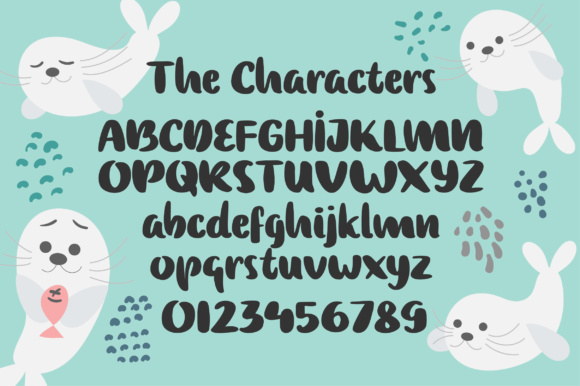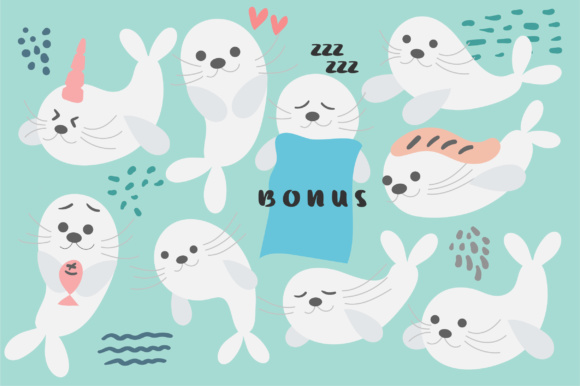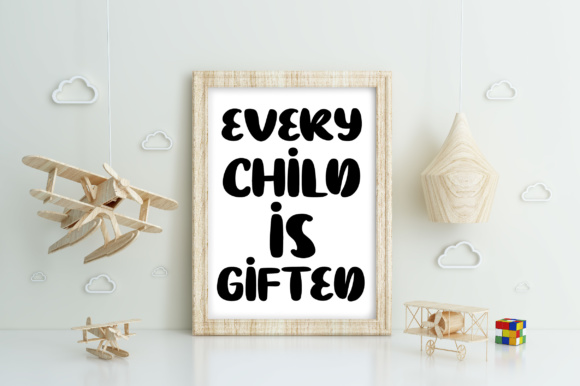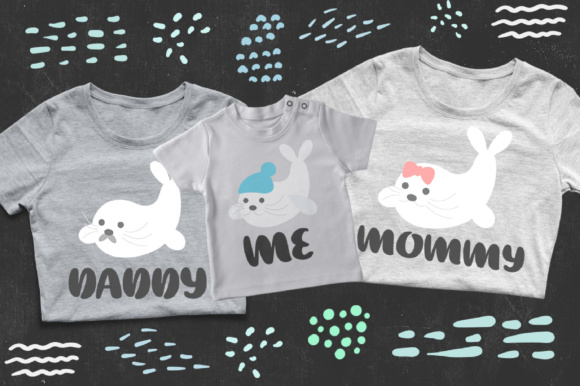
The Perfect Combination of Cuteness and Creativity
As a designer, there’s nothing quite like the feeling of stumbling upon the perfect font to bring your latest project to life. It’s that moment when everything clicks, and your vision starts to take shape. For me, it was when I discovered the Baby Seal Font – a charming, handwritten font that not only adds a touch of whimsy but also comes with adorable seal icons as a bonus.
Whether you’re working on a children’s book, a greeting card, or a social media campaign, the Baby Seal Font is the perfect tool to help you convey your message in a clear and engaging way. Its cute and clear letters make it an invaluable asset for designers looking to add a personal touch to their work.
With the Baby Seal Font, you’ll have the flexibility to create a wide range of designs, from playful to professional, and everything in between. So why not give it a try and see how this charming font can help take your creative projects to the next level?
Baby Seal Font Key Features
- Unique Characteristics: Hand-drawn, playful, and whimsical design; ideal for children’s books, nursery decor, and other family-friendly projects
Baby Seal Font Review
As a designer, I was excited to dive into the world of Baby Seal Font, a charming and whimsical script font. Here are my honest thoughts on this adorable typeface.
- Unique and playful design: Baby Seal Font’s hand-drawn feel and exaggerated features make it perfect for projects that require a touch of whimsy.
- High-quality rendering: The font is well-designed and well-rendered, with smooth curves and crisp lines.
- Wide range of styles: The font comes in multiple styles, from casual to formal, making it versatile for various design applications.
- Limited legibility: The font’s playful design can sometimes make it difficult to read, especially in smaller sizes or for longer blocks of text.
- Not ideal for body text: Due to its whimsical nature, Baby Seal Font is better suited for headlines, titles, or other design elements where legibility is not a primary concern.
Overall, I think Baby Seal Font is a great addition to any designer’s toolkit. While it may not be the best choice for every project, its unique charm and versatility make it a valuable resource for designers looking to add a touch of personality to their work.
Tips for Getting the Most Out of Baby Seal Font
Here are a few tips for getting the most out of Baby Seal Font:
- Use it for playful and whimsical designs.
- Pair it with bold and colorful graphics for maximum impact.
Baby Seal Font is commonly used for:
- Children’s book covers and illustrations.
- Party invitations and decorations.
- Watercolor illustrations of baby animals or flowers
- Hand-drawn or vector graphics of baby blocks, toys, or other kid-friendly elements
- Soft pastel colors and delicate textures for a dreamy feel
- Watercolor or hand-painted illustrations of baby seals or other ocean creatures
- Wooden or canvas textures for a rustic, natural feel
- Soft, calming colors such as light blue or pale gray
- Flat
Use the Baby Seal Font to create a cute and personalized message, such as the baby’s name or a special quote, and pair it with a adorable baby seal illustration.
Project 3: Baby Seal Font-based Social Media Graphics
Create engaging social media graphics for a baby-themed brand or business using the Baby Seal Font.
Use the Baby Seal Font to create eye-catching headlines, product titles, or promotional messages, and pair it with cute baby seal designs or illustrations.